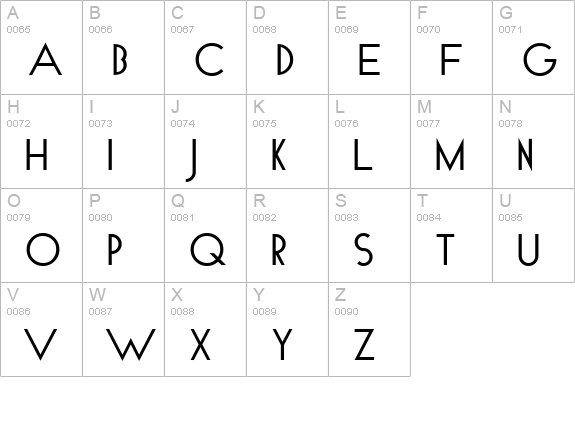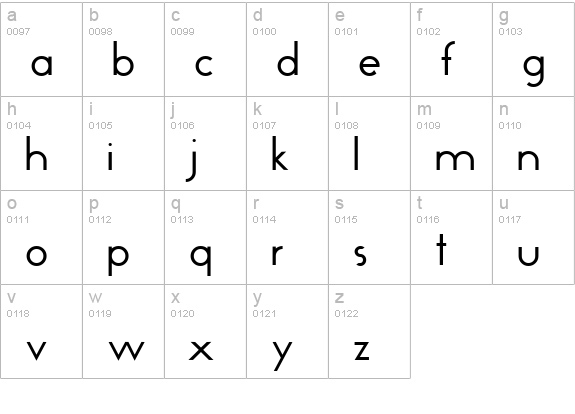
Glo Regular Font Details
Glo Regular is the standard, neutral variant in the Glo typeface family \xE2\x80\x94 well suited to general body text, paragraphs, and standard typographic work.
Glo Regular font is a versatile and modern typeface that is perfect for a wide range of design projects. Its clean lines and balanced proportions make it easy to read and ideal for both print and digital applications. The free Glo Regular font is a popular choice among designers looking for a sleek and professional look. Whether you're working on a branding project, website design, or any other creative endeavor, Glo Regular font is sure to add a touch of sophistication to your work. You can download this font for free at FontsMarket.com and start using it in your projects today.